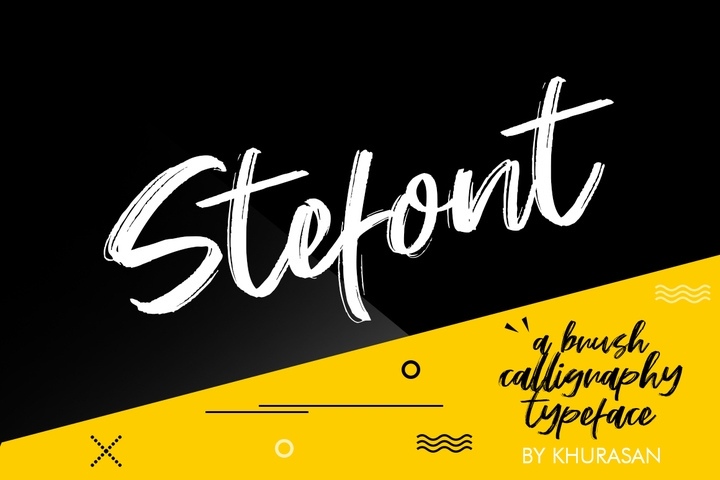
Stefont Font
Stefont Font is perfect for tech startup branding, modern app interfaces, contemporary websites, innovative marketing campaigns, digital product design, startup presentations, progressive business materials, creative agency projects, modern social media graphics, and cutting-edge advertising campaigns.
What makes Stefont Font exciting is its innovative modernity that embodies contemporary design evolution and forward-thinking aesthetics through progressively crafted letterforms. This dynamic typeface combines sleek sophistication with accessible functionality, creating a personality that communicates innovation, progress, and authentic contemporary style. The font's modern character and progressive appeal make it perfect for brands seeking to establish themselves as industry leaders and innovative pioneers in rapidly evolving digital markets.
The Stefont Font family includes Regular, Bold, Light, Medium, Progressive, Modern, Condensed, and Dynamic variants. Each weight maintains the font's contemporary character while providing comprehensive typographic flexibility for innovative brand identity systems and modern design applications across diverse digital platforms.
Whether you're developing tech brand identities, creating modern marketing materials, designing progressive user interfaces, or building innovative advertising campaigns, Stefont Font delivers unmatched contemporary appeal and modern sophistication. Its progressive presence makes it perfect for technology companies, digital agencies, innovative startups, and forward-thinking businesses seeking authentic modern representation.
The font's sleek proportions and contemporary details create an engaging reading experience that resonates with audiences seeking innovation, progress, and modern solutions. Each letterform has been carefully designed to convey technological advancement and contemporary style that connects with digitally-native audiences valuing innovation and progress.
This versatile typeface excels in digital environments, offering designers the modernity needed for comprehensive contemporary brand communication strategies. The extensive character set includes progressive alternates, modern ligatures, and digital symbols for tech market positioning and innovative brand storytelling.
Embrace the power of progressive design that celebrates technological advancement and modern digital culture.